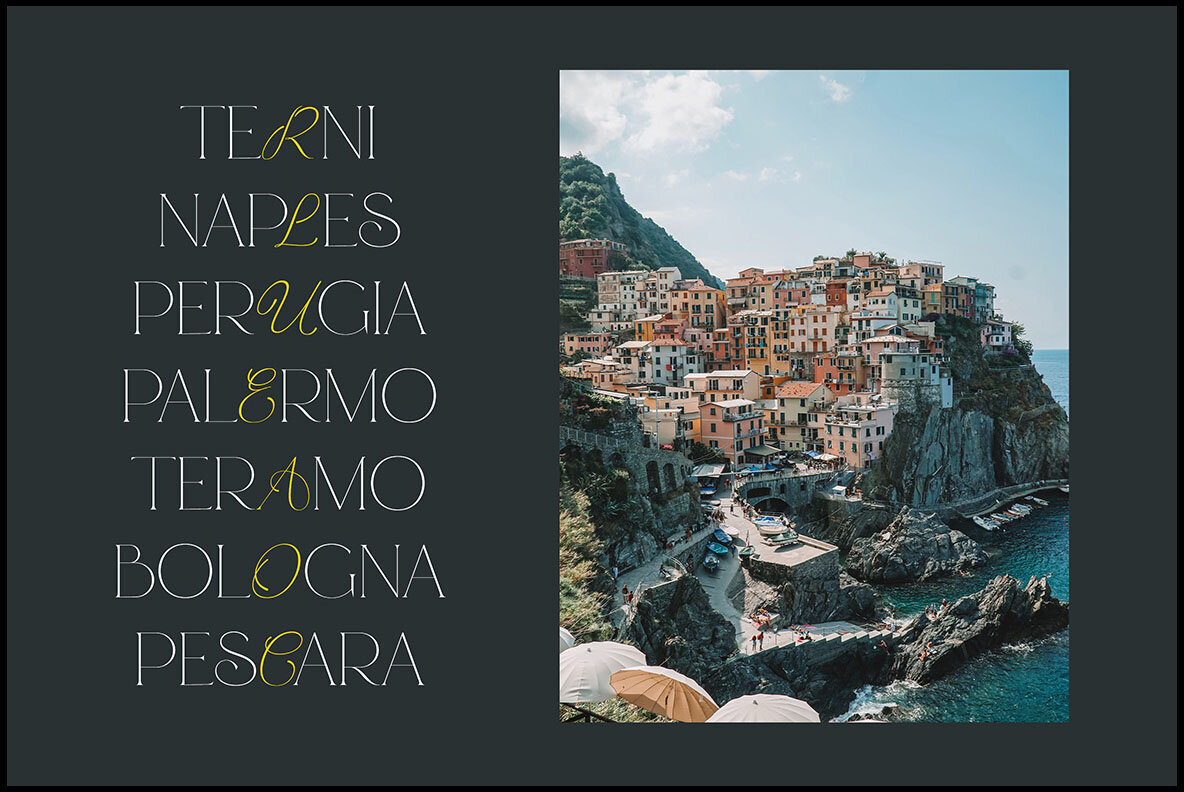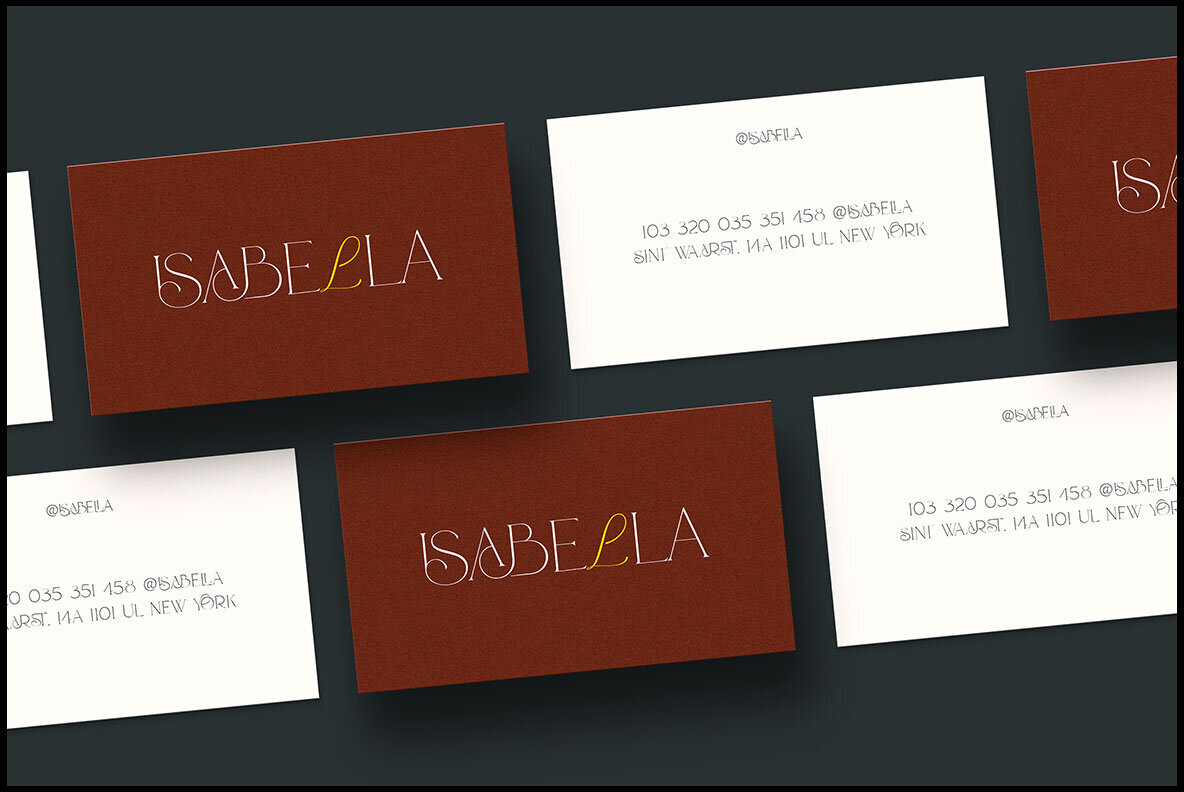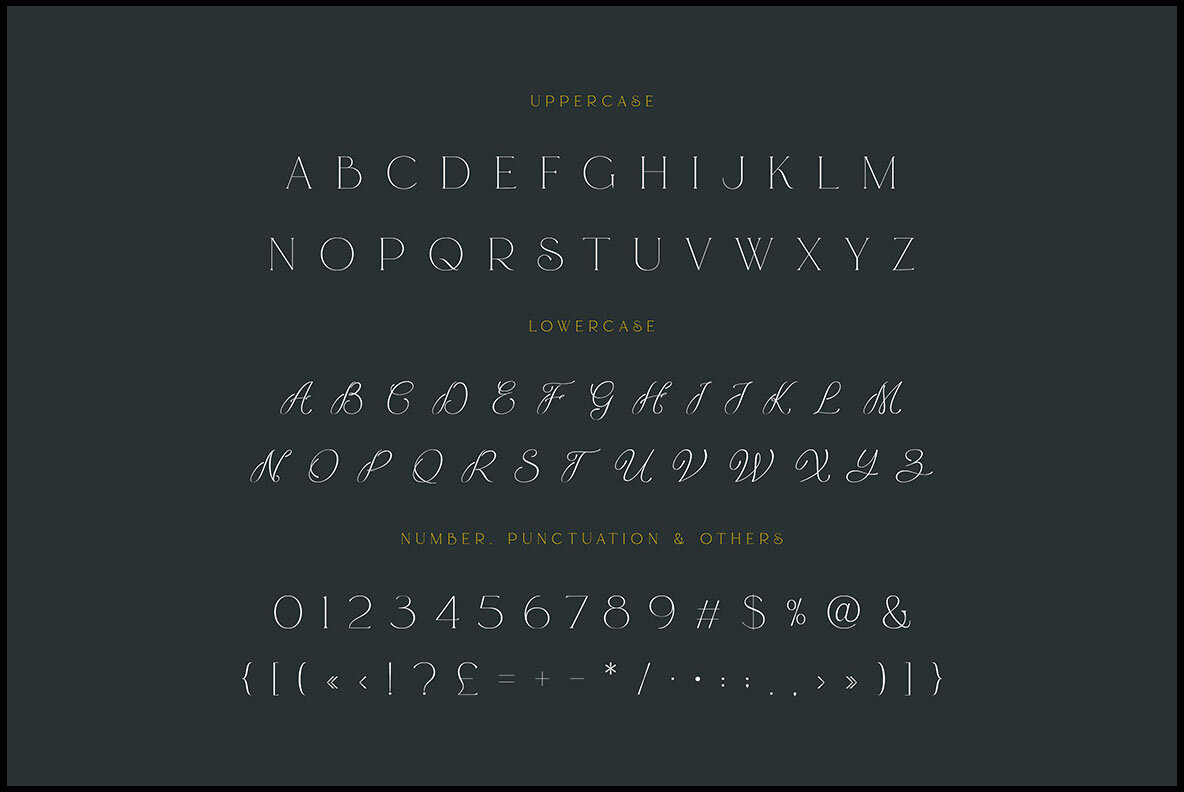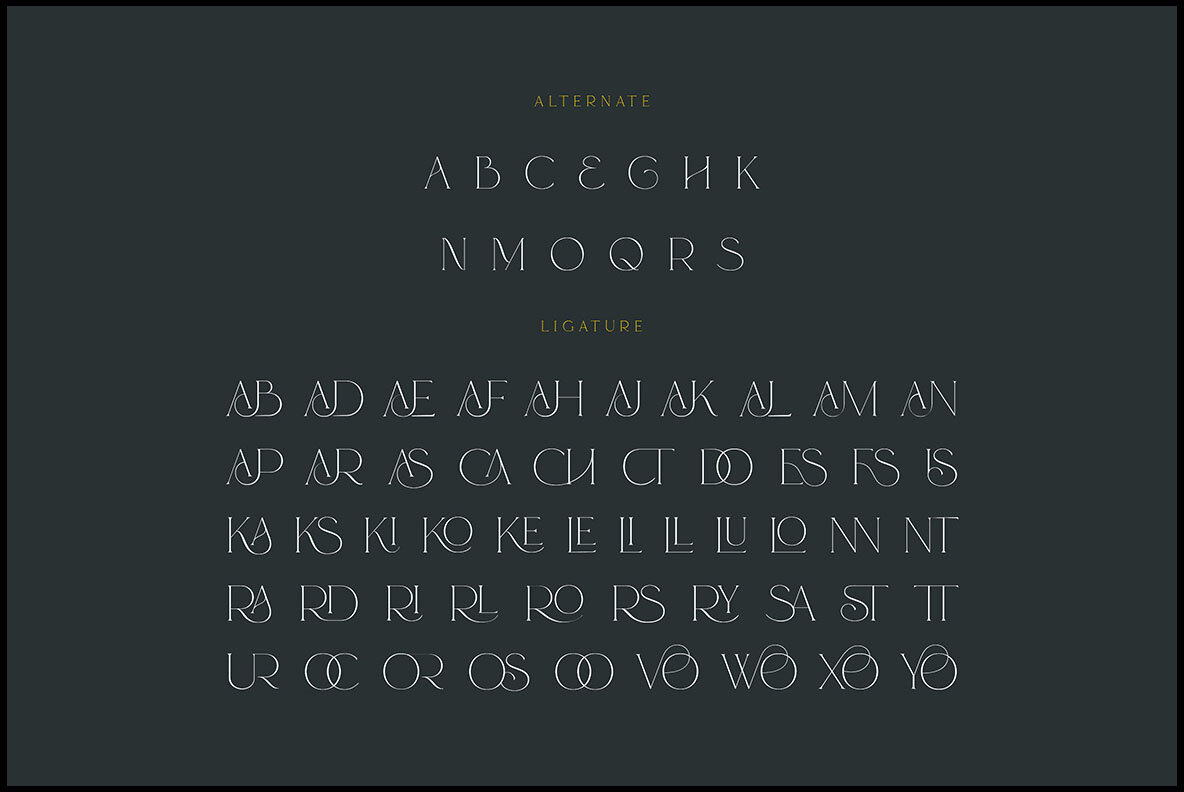
Risuali Font
Risuali Regular
Risuali is a trendy, elegant, and luxurious serif font crafted by Peter Olexa, perfect for sophisticated and modern design projects. Its artistic and romantic style makes it an excellent choice for branding endeavors, providing a touch of class and elegance to any creation.Risuali: Elegant and Modern Serif Font